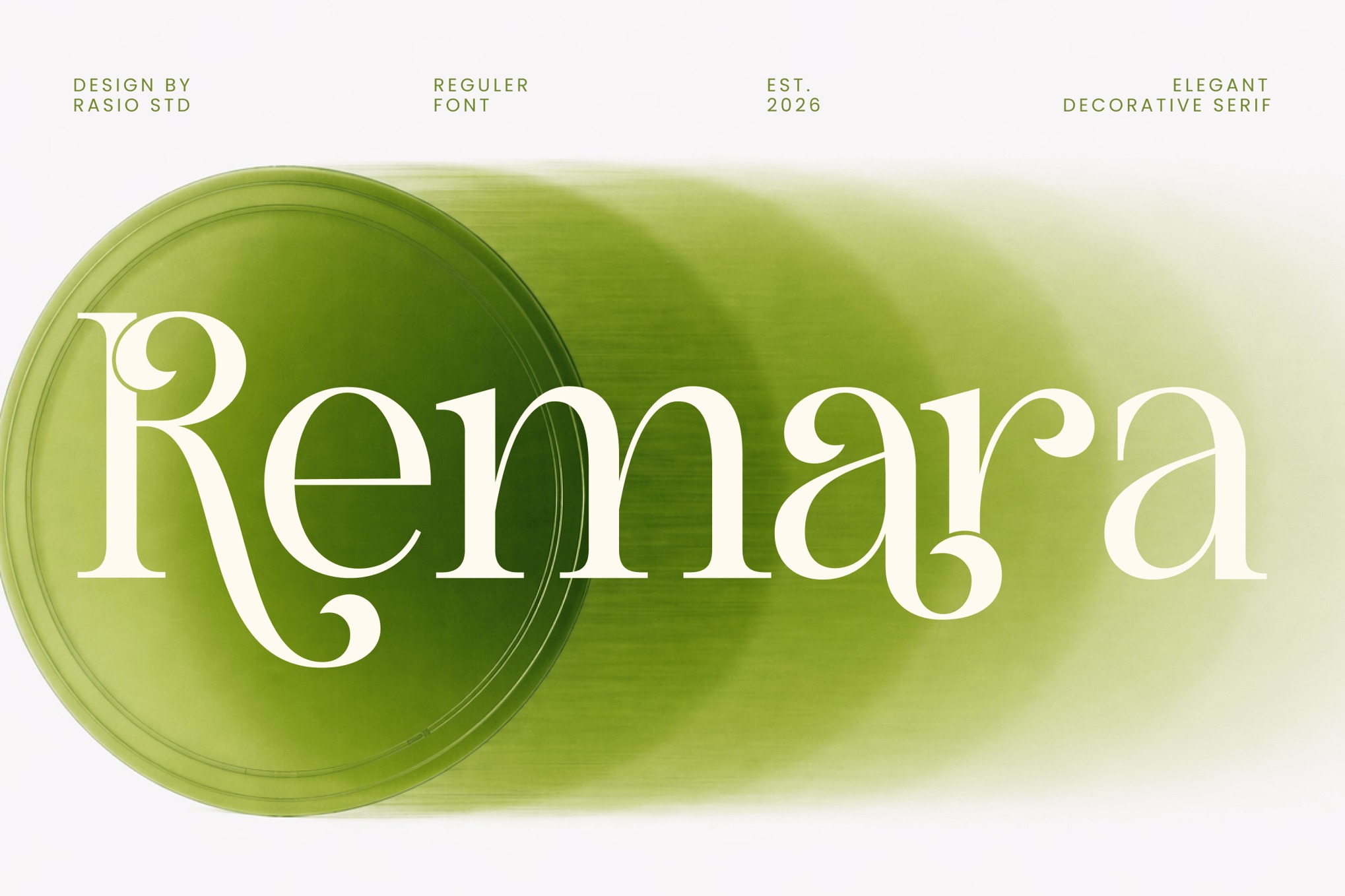
Remara – Elegant Serif Font
Remara – Elegant Serif Font is a clean and thoughtfully built typeface that works seamlessly for both professional branding and everyday creative uses. Remara Elegant Decorative Serif showcases refined high-contrast letterforms with graceful curves, delicate ligatures, and expressive decorative serif details. The font features multilingual characters, uppercase and lowercase sets, numerals, punctuation, and stylistic alternates, crafted for sophisticated editorial and branding compositions. Its elegant serif structure blends modern luxury with subtle vintage character, making it suitable for premium visual identities, packaging, and artistic layouts.
Relevance and Use Cases is perfect for luxury branding, editorial layouts, beauty packaging, fashion campaigns, boutique logos, restaurant menus, wedding stationery, premium product labels, magazine headlines, social media branding, and elegant visual identities requiring refined decorative serif typography. Designed for creators seeking timeless beauty, decorative sophistication, and elevated typography with a soft luxurious presence.
Designer: Rasiostd